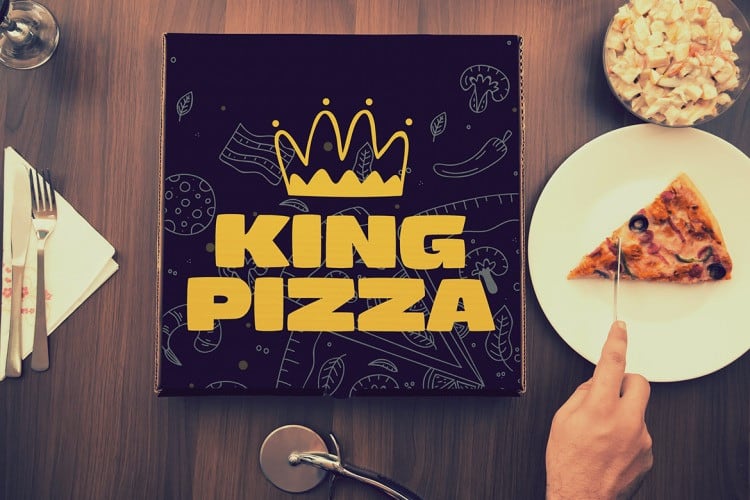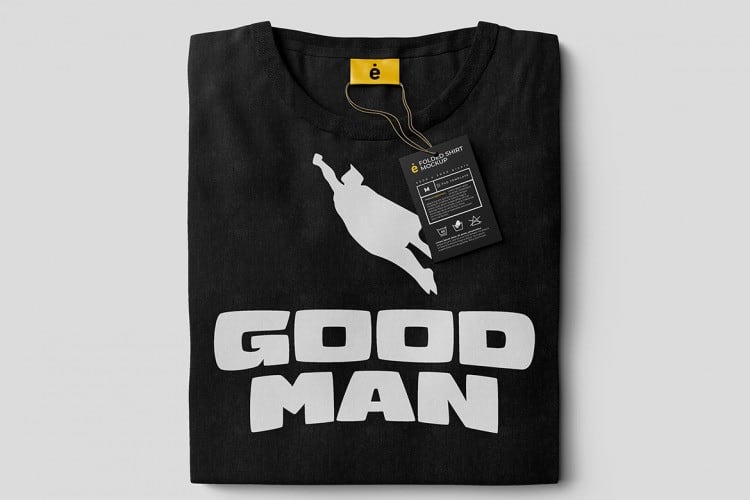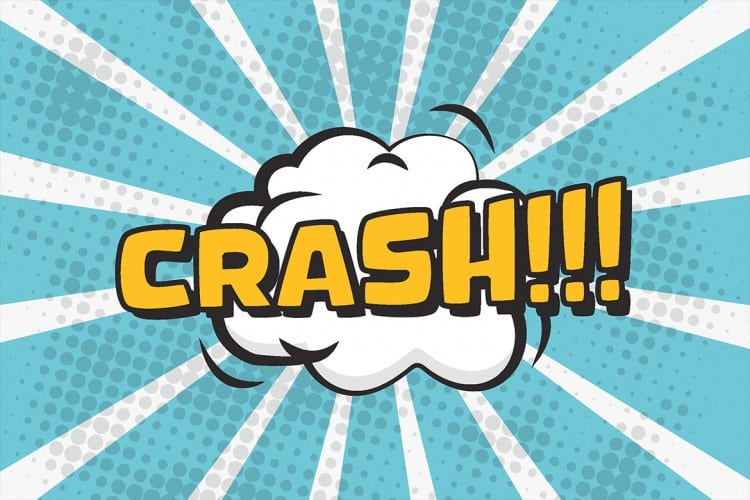
Chucklesome Display Font
Chucklesome Display Font is a vintage font inspired by retro signage, highly recommended for display. Made from font designer named Tokokoo Studio. It is bold, heavy, stand out, but with rounded corner and chubby shape, Chucklesome sure is gonna make every word written will get an attention.
Suit perfectly for Online Games, poster, movie title, fast food menu, magazine, youtube covers, youtube thumbnails, social media page covers and so on…